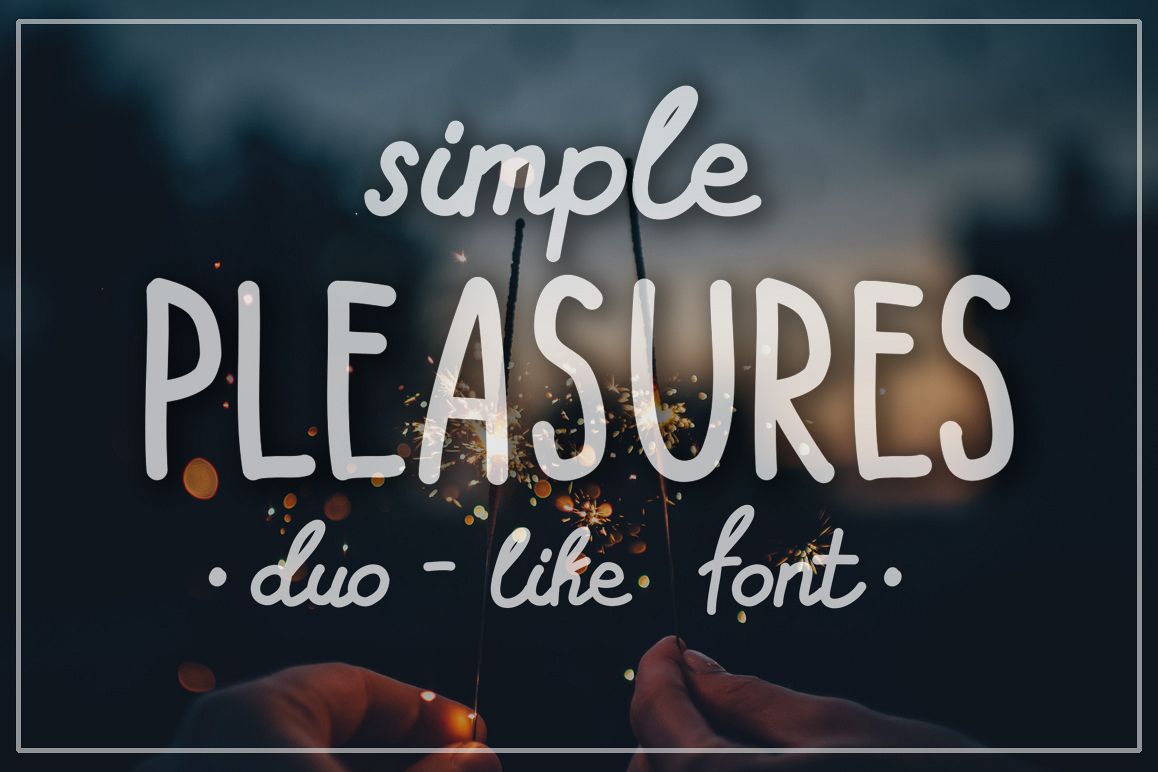
SIMPLE PLEASURES - hand drawn font
Here comes
my new hand drawn TrueType font - SIMPLE PLEASURES!
This hand
drawn font contains capital, lowercase letters, numbers and most characters
from your keyboard. Use it's capital and lowcase letters separatly to create
"font duo" effect.
It's
perfect for modern products design, logo, t-shirt prints, posters and so on.
Add phrases made with this font to your photos to create really cool cards!